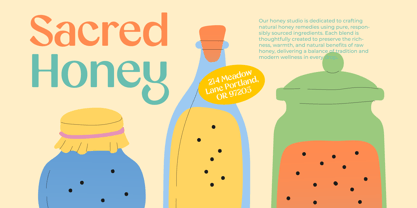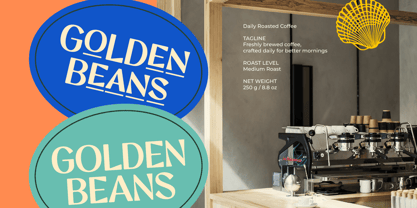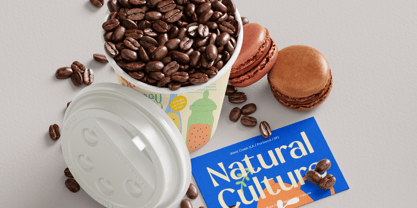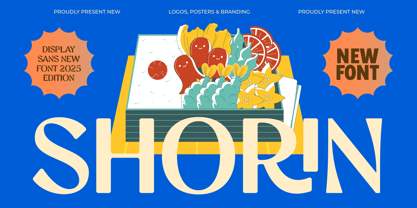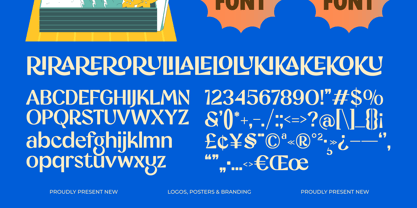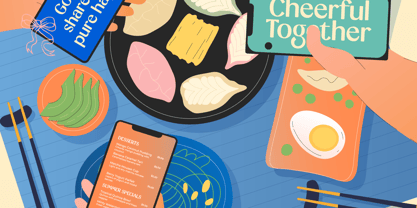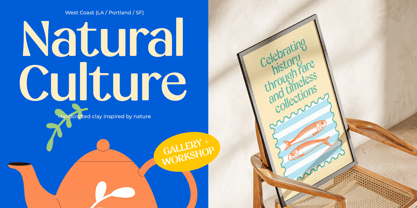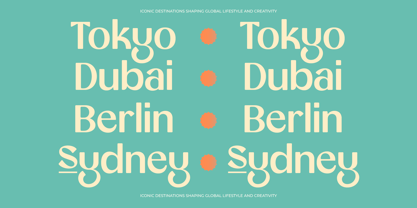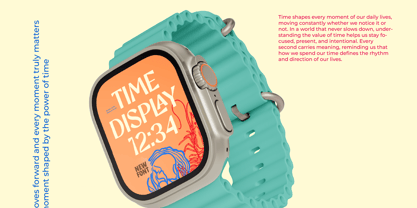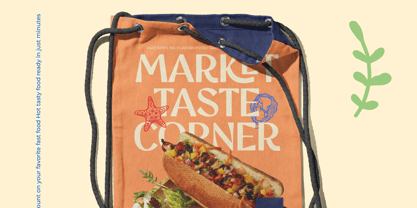
Shorin
von Jaruka Creative
Die Schriftfamilie Shorin wurde von Edy Subiyanto entworfen und von Jaruka Creative veröffentlicht. Shorin enthält 1 Stile. Mehr über diese Familie
Introducing Shorin: Bright, Bold, and Playfully Modern
Shorin is a fresh, expressive display sans font designed to bring warmth, personality, and contemporary flair to your creative work. Blending crisp modern letterforms with fluid, playful ligatures and stylized alternates, Shorin turns everyday typography into eye-catching visual statements.
Whether you're crafting high-energy branding, lifestyle products, or vibrant packaging, Shorin gives your designs a distinct rhythm that demands attention while staying effortless and clean.
Key Visual Highlights
• Distinctive Character & Stylized Alternates: Shorin features unique structural flourishes—such as underlined characters, sweeping tails, and exaggerated loops—that elevate simple words into custom logo-like artwork.
• Rich Ligatures & Variations: The typeface comes packed with expressive ligatures (like RI, RA, RE, RO, RU, LA, LE, LO, LU, KI, KA, KE, KO, KU) alongside a full set of uppercase, lowercase, numbers, punctuation, and symbols.
• Modern Versatility: From tech displays like smartwatch faces to editorial posters, Shorin scales gracefully across modern digital devices and physical prints alike.
Perfect Applications
• Branding & Identity: Ideal for vibrant coffee shops, organic eateries, and artisanal goods.
• Packaging & Merchandise: Perfect for tote bags, product labels, and food packaging.
• Posters & Digital Graphics: Stand out on social media graphics, UI screens, menus, and art prints.
Bring your next design project to life with Shorin—where modern display typography meets playful, unforgettable charm!
Designer: Edy Subiyanto
Foundry: Jaruka Creative